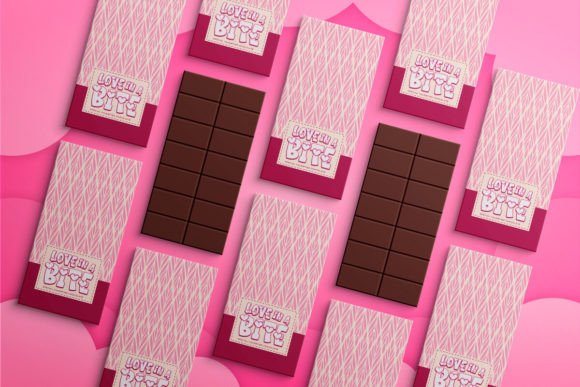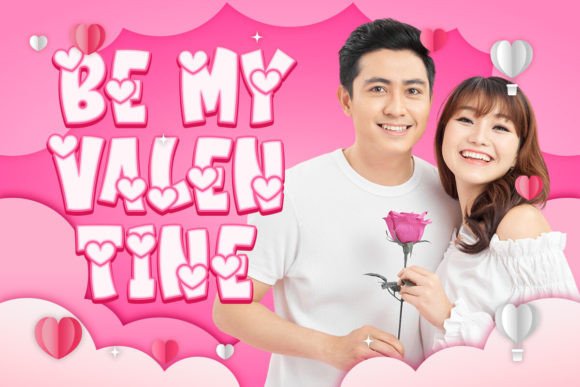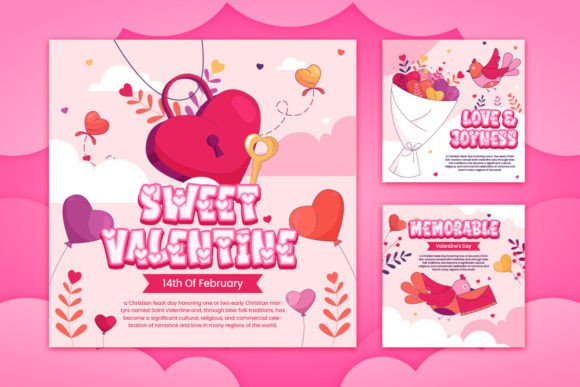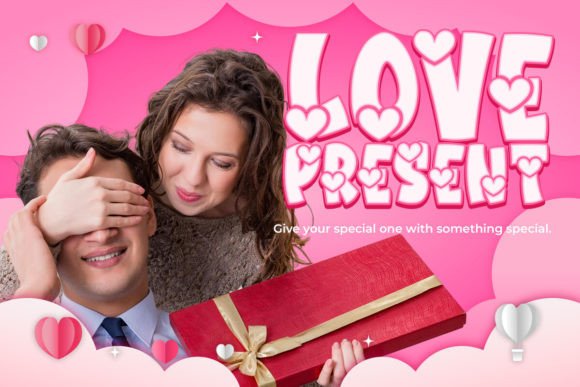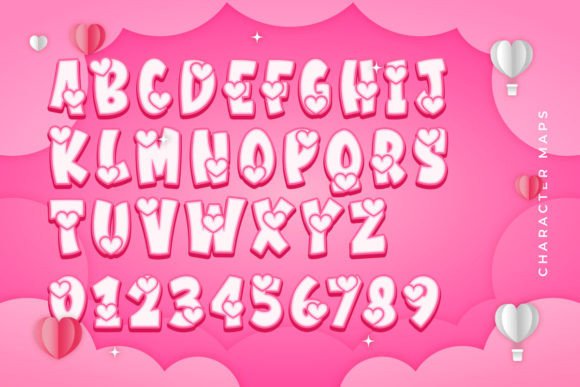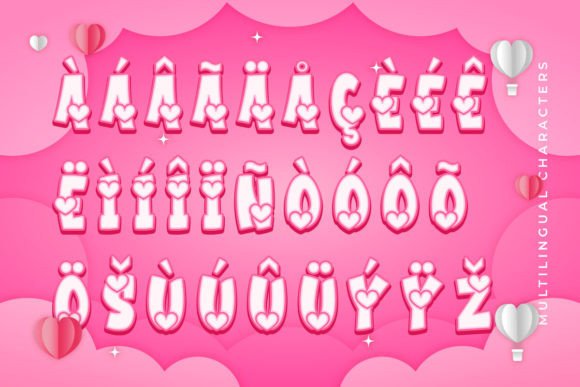
Introduction to Couple Valentine Font
Couple Valentine is a charming and romantic display font designed to celebrate love and affection.
With its elegant curves and whimsical letterforms, this font adds a heartfelt touch to any Valentineโs Day project Perfect for creating romantic invitations, love letters, greeting cards, and event decor, Couple Valentine enhances your designs with a sweet and sophisticated style.
Key Features of Couple Valentine Font
Why Choose Couple Valentine Font?